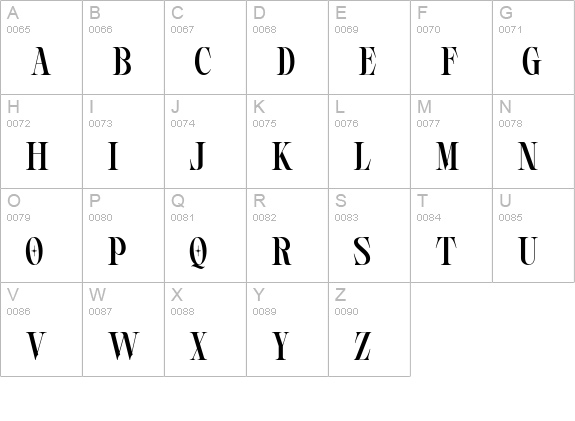
BROGETTA - Modern Serif Font Font Details
Introducing BROGETTA - a sleek and sophisticated modern serif font that exudes elegance and professionalism. With its clean lines and timeless appeal, BROGETTA is perfect for adding a touch of refinement to your projects. This font is versatile and can be used for a variety of design purposes, from branding to editorial design.